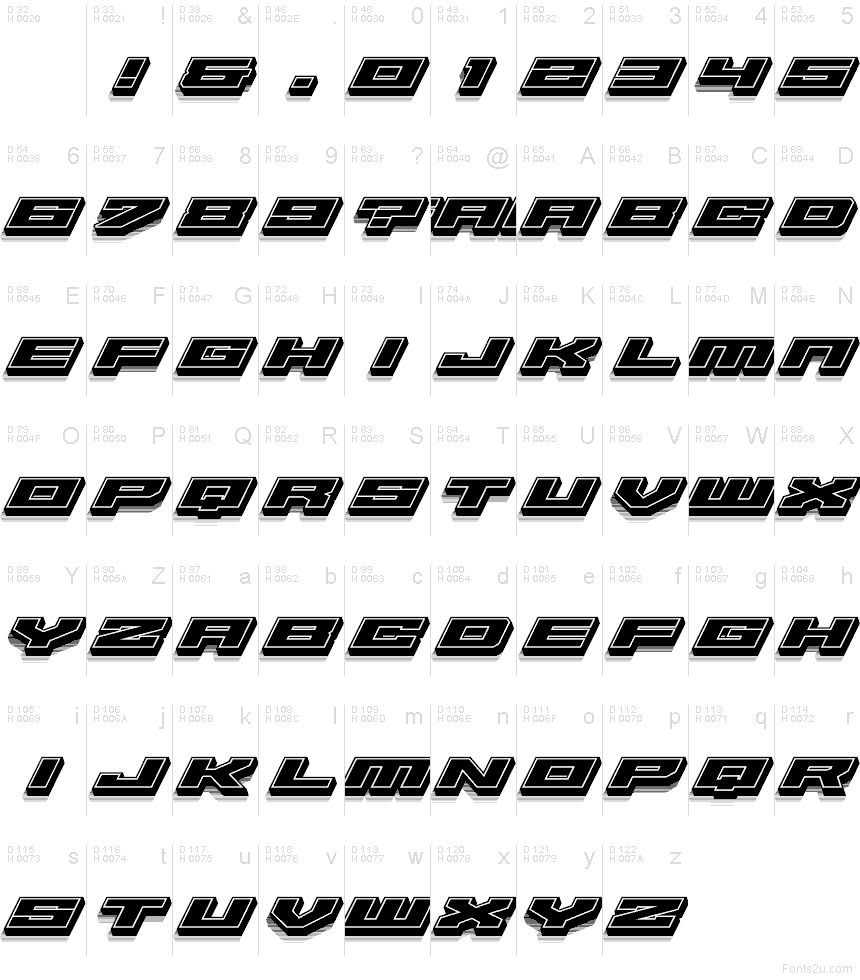
Gear-Shade
Gear6 Shade font by Youssef Habchi is a free techno racing display font that hits the gas on impact. Part of the Gear6 family, its defining feature is the built‑in shaded bevel: thick, streamlined letters with angled cuts and a gleaming, speed-strip depth that reads like motion blur. The forward slant and chunky weight feel metallic and purposeful, delivering instant horsepower to headlines without extra effects.
Using Gear6 Shade, you can push energy into esports logos, car meet posters, sci‑fi game titles, pit-lane signage, streaming overlays, and tech event banners. The spacing is tight and rhythmic, so short words lock up like a badge. This free font shines at large sizes; pair it with a clean geometric sans for body copy to keep the engine noise where it belongs—up front.